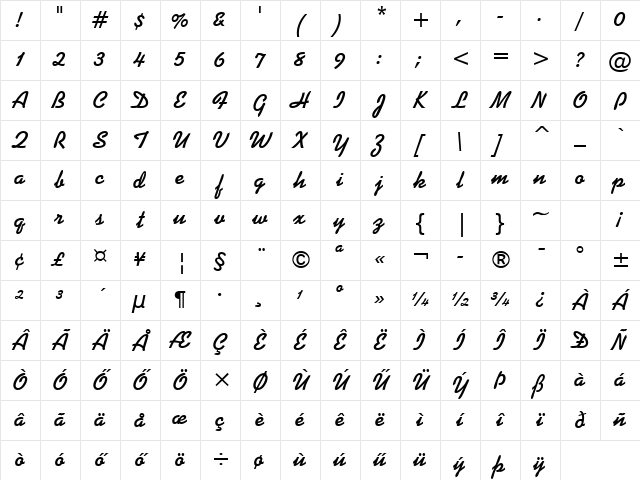
Complete H_Kaufmann Bold BT glyph index. Displaying only characters natively supported by H_Kaufmann Bold BT font.
H_Kaufmann is a composed and adaptable typeface that performs quietly and consistently across a wide range of design contexts. Its bold stroke weight gives it real presence on the page.